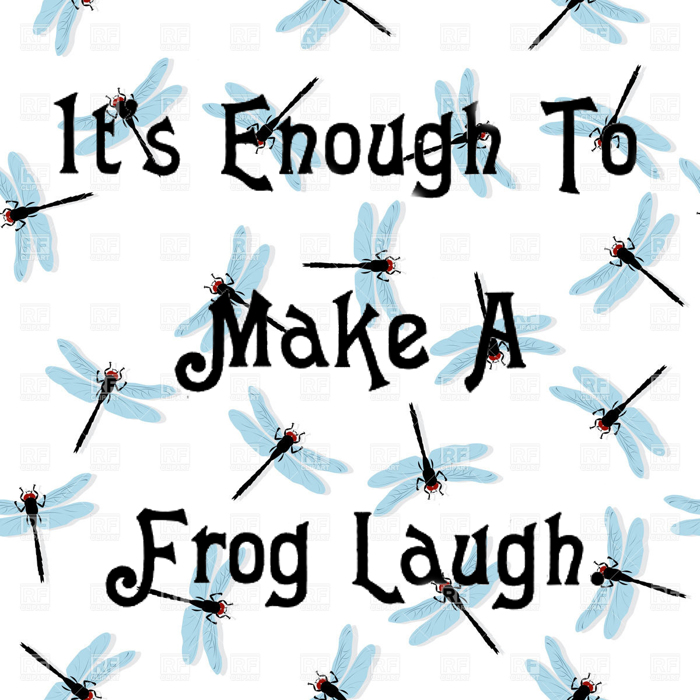
Laughing Frog Font
About Laughing Frog Font
More info from Art Designs by Sue
This font was inspired by a caption on a 1909 newspaper that said "It's Enough To Make a Frog Laugh'". At the time this newspaper was printed, it was done in the old method.